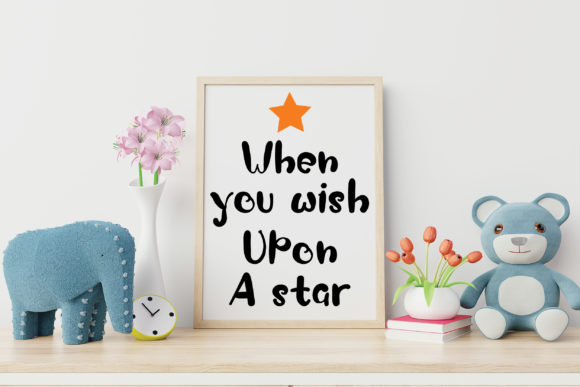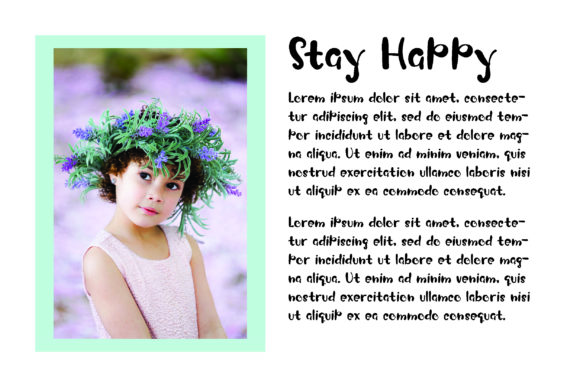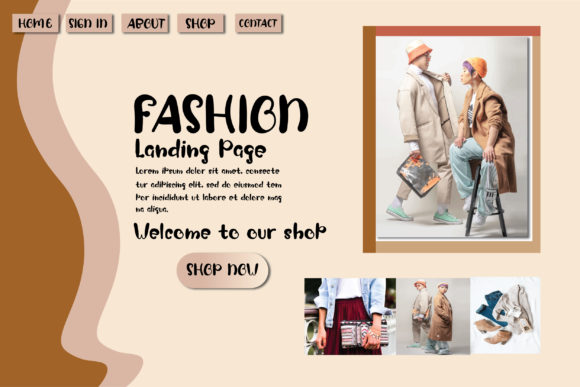
Introduction to Raos Font
Have you ever found yourself stuck in a creative rut, scrolling through design inspiration boards, and suddenly stumbling upon that one font that makes everything click? For designers, this moment of epiphany is a treasure trove of possibilities. And for us, that game-changing font is none other than the Raos Font. Its sweet and bold handwritten style has the power to elevate any design project, from a simple logo to a complex marketing campaign.
As a valuable design resource, the Raos Font is a must-have for any creative project. With its high-quality, transparent background, it’s perfect for adding a personal touch to your designs. And the best part? It’s available for free download, making it an accessible treasure trove for designers of all levels. Whether you’re working on a personal project or collaborating with a team, the Raos Font is sure to be a trusted companion.
Key Features of Raos Font
- High-quality design resource with a unique and creative style, ideal for various projects
- Unique characteristics, such as custom shapes and lines, add a touch of personality to any creative project
- Designed with versatility in mind, Raos Font is suitable for a wide range of applications, from branding to editorial design
Honest Review: Raos Font
I recently had the opportunity to work with the Raos Font, and I must say it’s been a game-changer for my creative projects. The free download has been a lifesaver, as it’s saved me time and effort in finding a suitable design resource.
What works well is the high quality of the font. The transparent background is a bonus, allowing me to seamlessly integrate it into my designs. I’ve found it to be particularly useful in creating visually appealing graphics for social media and marketing materials.
One limitation I’ve noticed is the limited character set. This might not be a concern for simple projects, but for more complex designs, it could be a hindrance.
Overall, I’m thoroughly impressed with the Raos Font. Its high quality and versatility make it an excellent addition to any designer’s toolkit. While it may have some limitations, I believe it’s well worth the free download.
Tips for Getting the Most Out of Raos Font
To get the most out of Raos Font, use it in combination with a transparent background to create a high-quality design. Experiment with different font sizes, colors, and arrangements to find the perfect look for your creative project.
Raos Font is ideal for various design projects, including branding, marketing materials, and digital products. Its high-quality design and transparent background make it a popular choice among designers and creatives.
Q: Can I use Raos Font for designs with a transparent background?
Yes, you can use Raos Font for designs with a transparent background. Since Raos Font comes with a transparent background, you can easily place it over any image or design without worrying about the background color. This makes it an ideal design resource for creative projects that require high-quality typography.
Q: Is Raos Font suitable for large-scale designs, such as billboards or posters?
Raos Font is designed to be highly legible and scalable, making it suitable for large